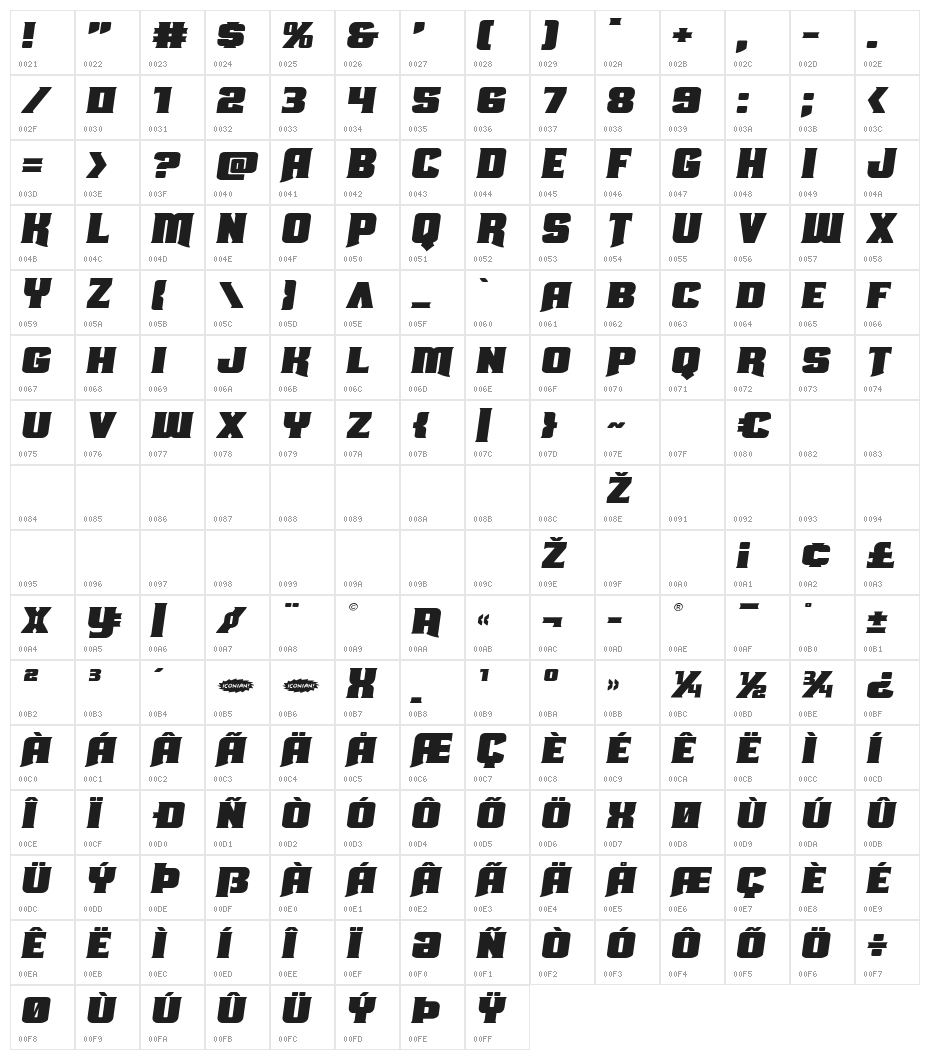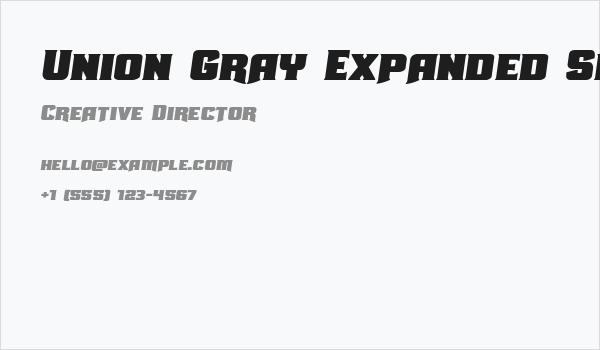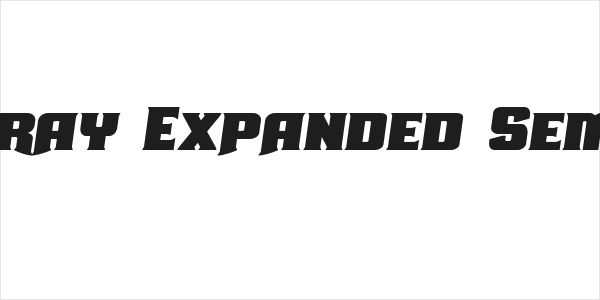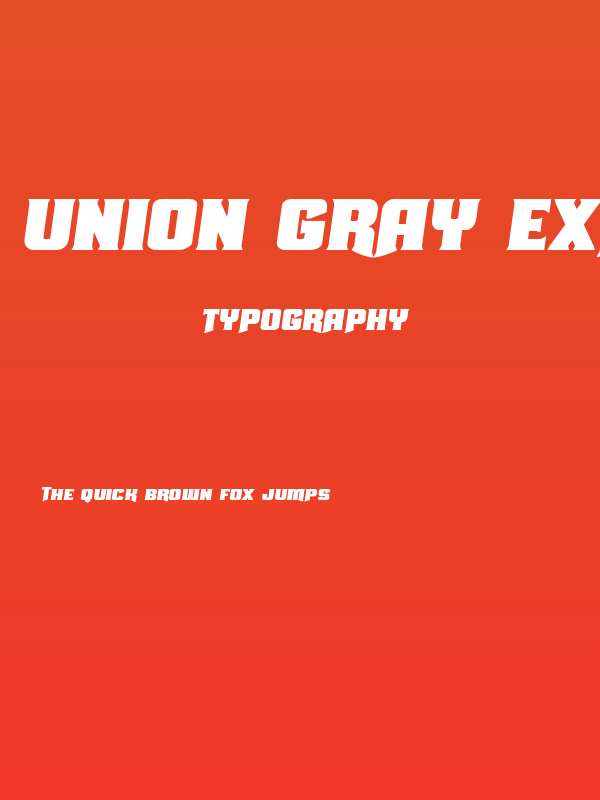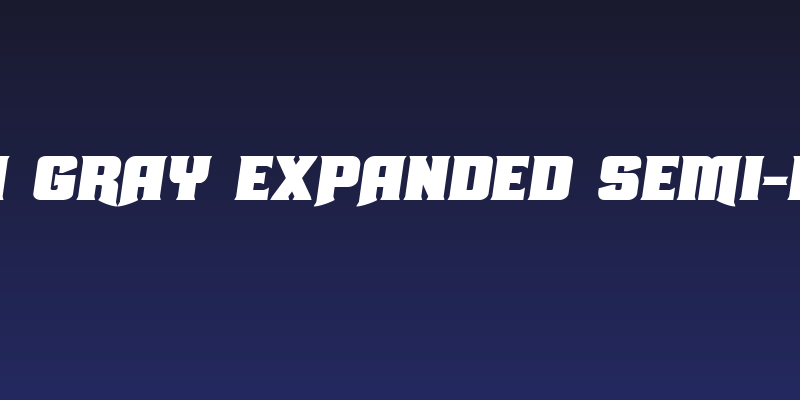
Union Gray Expanded Semi-Italic Font
Union Gray Expanded Semi-Italic Description
This font features a bold and dynamic design with a semi-italic slant, giving it a sense of movement and energy. The characters are expanded, providing a wide and commanding presence. The strokes are thick and consistent, contributing to a strong visual impact. The angular cuts and sharp edges add a modern and edgy feel, making it suitable for attention-grabbing designs. The font maintains a uniform weight throughout, ensuring readability while retaining its bold character.
Proposed ProjectsIdeal for sports branding, posters, headlines, and any design requiring a bold statement.